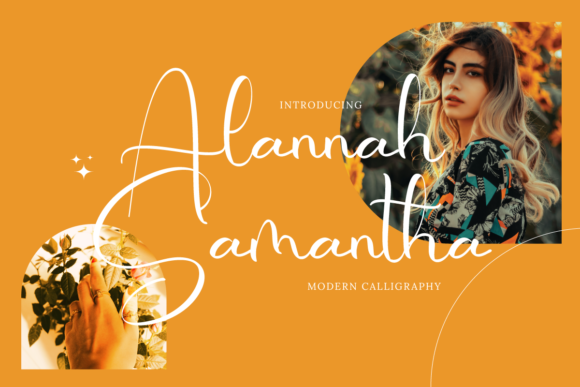
The Perfect Handwritten Touch: Unlocking the Magic of Alannah Samantha Font
Have you ever been brainstorming a creative project and suddenly, the perfect idea strikes you? It’s that moment when everything falls into place, and you can envision the entire design unfolding before your eyes. For designers, this feeling is exhilarating, and it’s exactly what the Alannah Samantha Font is designed to evoke.
Alannah Samantha Font is a beautiful, elegant, and flowing handwritten font that brings a touch of sophistication to any design. Its well-balanced characters make it a versatile choice for a wide range of projects, from elegant wedding invitations to creative marketing campaigns. By incorporating the Alannah Samantha Font into your designs, you can add a personal and emotive element that sets your work apart.
Whether you’re a seasoned designer or just starting out, the Alannah Samantha Font is a valuable addition to your toolkit. Its unique charm and elegance make it a go-to choice for designers looking to add a handwritten touch to their projects.
Alannah Samantha Font Key Features
- Font Family: Alannah Samantha
- Font Style: Script
- Size: 1,034 glyphs, including Latin, Greek, Cyrillic, and other languages
- Unique Characteristics: Hand-drawn, cursive, elegant, and sophisticated design, suitable for invitations, greeting cards, and other creative projects
Alannah Samantha Font Review
Overall, I think Alannah Samantha is a nice, elegant script font that can work well in various design contexts. ✨ The font’s flowing connections and curved strokes give it a soft, feminine touch, making it suitable for projects that require a touch of sophistication.
- ✨ Elegant, flowing connections between letters
- ✨ Suitable for projects requiring a touch of sophistication or femininity
- ✨ Can work well for headings and titles in print and digital designs
However, I do have some reservations about the font’s limitations. ⚠️ While it’s great for certain projects, it may not be the best choice for situations where a more playful or bold font is needed. Additionally, the font’s connections and strokes can sometimes make it difficult to read in certain font sizes or contexts.
- ⚠️ May not be suitable for playful or bold designs
- ⚠️ Can be difficult to read in certain font sizes or contexts
- ⚠️ Limited in terms of versatility and adaptability
Overall, I think Alannah Samantha is a solid choice for designers who need a elegant script font, but it’s essential to consider its limitations and choose it wisely.
Alannah Samantha Font is perfect for creating elegant and sophisticated designs, making it ideal for wedding invitations, birthday party invitations, and other special occasion designs.
Alannah Samantha Font is great for creating intricate designs, logos, and typography projects.
Alannah Samantha Font is perfect for creating professional-looking presentations and documents.
Great Vibes is a beautiful script font that is perfect for creating a whimsical and elegant look. It is ideal for use in wedding invitations, quotes, and other creative projects. Compared to Alannah Samantha Font, Great Vibes has a more fluid and dynamic feel, with a wider range of expressive characters.
Lobster is a fun and playful script font that is great for use in casual and creative projects. It is perfect for headings, titles, and other text that needs to stand out. Compared to Alannah Samantha Font, Lobster has a more rustic and handwritten feel, with a stronger emphasis on personality.
Carolyna Pro is a sophisticated and elegant script font that is perfect for use in high-end projects. It is ideal for use in fashion, beauty, and luxury brands, as well as in weddings and other special events. Compared to Alannah Samantha Font, Carolyna Pro has a more refined and polished feel, with a wider range of customizability options.